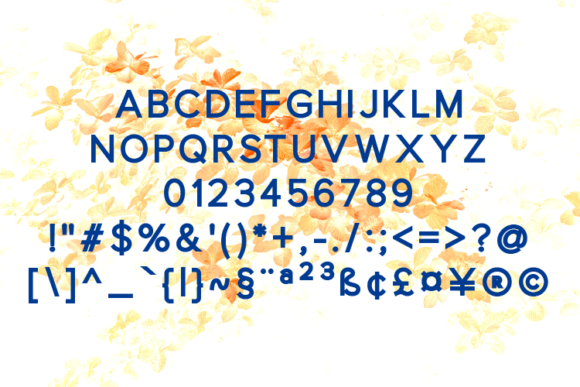
Gerkco Extra Black Font: Elevate Your Designs with a Modern Sans Serif Style
In the world of typography, fonts play a crucial role in conveying the message and aesthetic of a design. For designers and crafters looking for a clean, elegant, and modern sans serif font, Gerkco Extra Black is an excellent choice. This versatile font is perfect for creating a wide range of projects, from cool logos and eye-catching social media posts to unique book covers and more.
The Characteristics of Gerkco Extra Black Font
Gerkco Extra Black is a clean and elegant looking sans serif font that exudes a sense of modernity and sophistication. Its sleek lines, balanced proportions, and crisp edges make it an ideal choice for designers seeking a font that can add a touch of refinement to their projects. The font’s extra black weight gives it a bold and commanding presence, making it perfect for headlines, titles, and other display text.
Design Possibilities with Gerkco Extra Black
One of the key benefits of Gerkco Extra Black is its versatility. This font can be used in a wide range of design applications, including:
- Logos: Create a lasting impression with a modern and sleek logo that incorporates Gerkco Extra Black. The font’s bold and elegant style makes it perfect for logos that need to convey a sense of professionalism and sophistication.
- Social Media Posts: Make your social media posts stand out with Gerkco Extra Black. The font’s clean and modern style is perfect for creating eye-catching headlines and titles that grab the attention of your audience.
- Book Covers: Give your book a professional and modern look with Gerkco Extra Black. The font’s elegant style makes it perfect for book covers, especially for genres such as fiction, non-fiction, and memoirs.
- Business Cards: Create a lasting impression with business cards that feature Gerkco Extra Black. The font’s bold and elegant style makes it perfect for business cards that need to convey a sense of professionalism and sophistication.
Why Choose Gerkco Extra Black Font?
There are many reasons why designers and crafters should choose Gerkco Extra Black for their projects. Here are a few:
- Modern Feel: Gerkco Extra Black has a distinctly modern feel that makes it perfect for designers looking to create projects that are contemporary and stylish.
- Clean and Elegant: The font’s clean and elegant style makes it perfect for projects that require a sense of sophistication and refinement.
- Versatile: Gerkco Extra Black can be used in a wide range of design applications, making it a versatile addition to any designer’s toolkit.
- Easy to Read: Despite its bold weight, Gerkco Extra Black is easy to read, making it perfect for body text and other applications where legibility is important.
Tips for Using Gerkco Extra Black Font
Here are a few tips for using Gerkco Extra Black in your designs:
- Pair it with Other Fonts: Gerkco Extra Black can be paired with other fonts to create a unique and visually appealing design. Try pairing it with a serif font for a classic look or with another sans serif font for a modern feel.
- Use it for Headlines: Gerkco Extra Black is perfect for headlines and titles, where its bold and elegant style can make a lasting impression.
- Experiment with Colors: Gerkco Extra Black can be used in a wide range of colors, from bold and bright to subtle and muted. Experiment with different colors to find the one that works best for your project.
Gerkco Extra Black is a versatile and modern sans serif font that is perfect for designers and crafters looking to elevate their designs. With its clean and elegant style, bold weight, and ease of readability, Gerkco Extra Black is an excellent choice for a wide range of design applications. Whether you’re creating a logo, social media post, book cover, or business card, Gerkco Extra Black is sure to make a lasting impression.